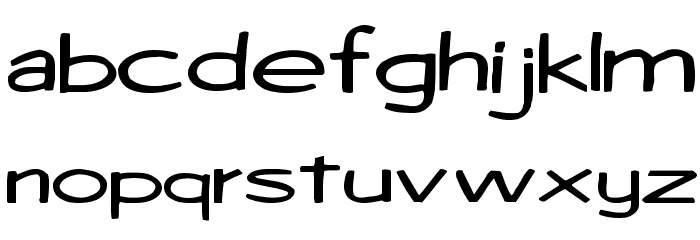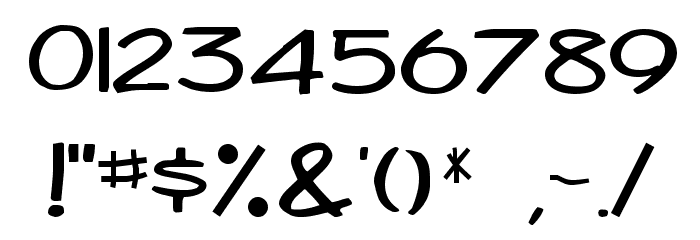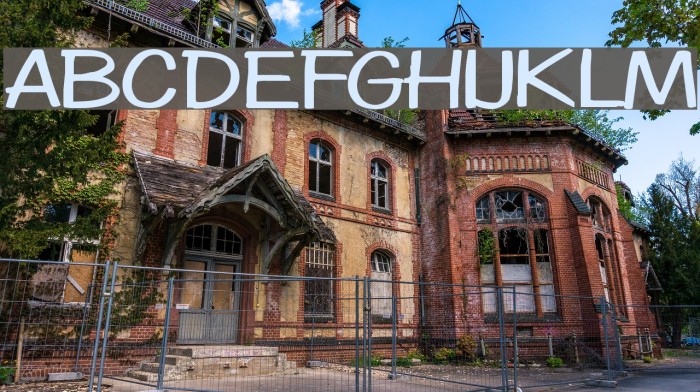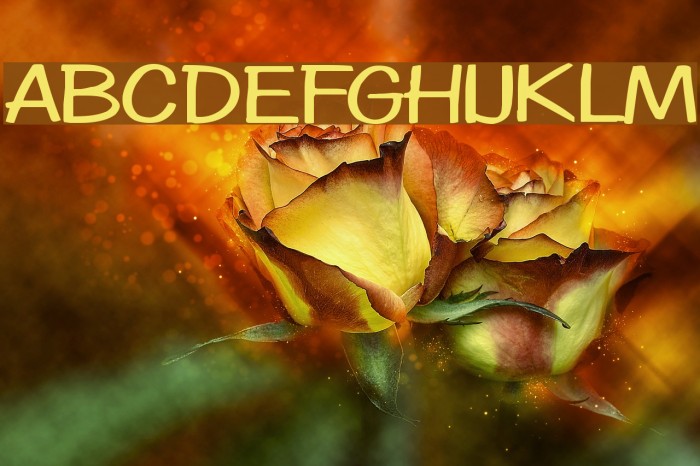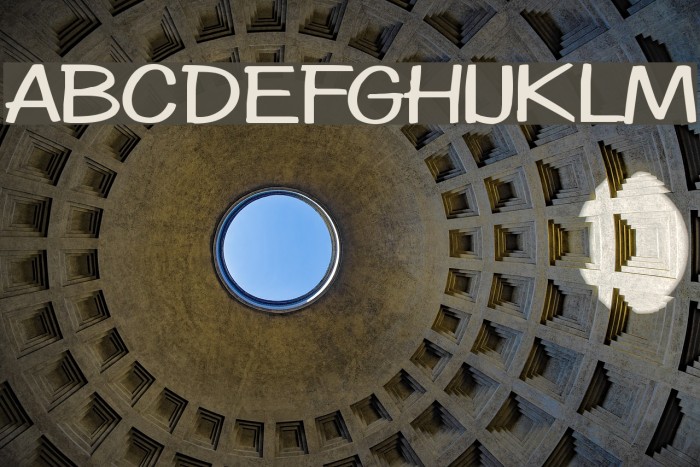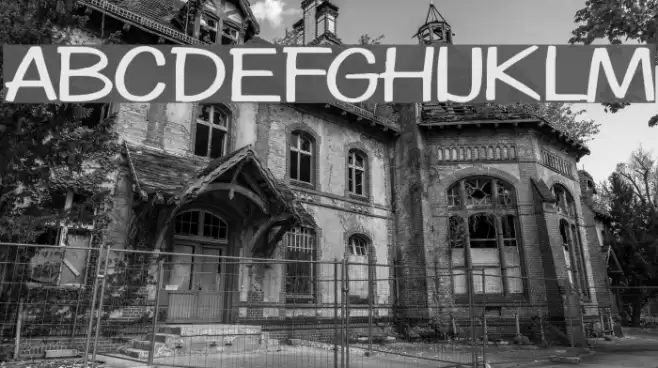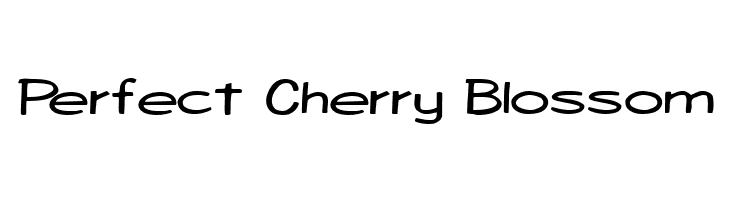
Jeff-Chris Bold Font
This font features a playful and casual style with a handwritten appearance. The characters have a slightly irregular form, giving them a unique and friendly look. The strokes are consistent in thickness, providing a uniform appearance across all letters and numbers. The rounded edges and smooth curves contribute to its approachable and informal feel. This font is versatile, suitable for both digital and print media, and can be used to add a personal touch to various projects. The special characters maintain the same playful style, ensuring consistency throughout any text.
A playful, handwritten-style font with consistent stroke thickness and rounded edges.
- Proposed Projects: Ideal for children's books, casual invitations, greeting cards, and playful branding.
- Overall Style: Casual
- Use Case: Headlines, Logos, Informal Text